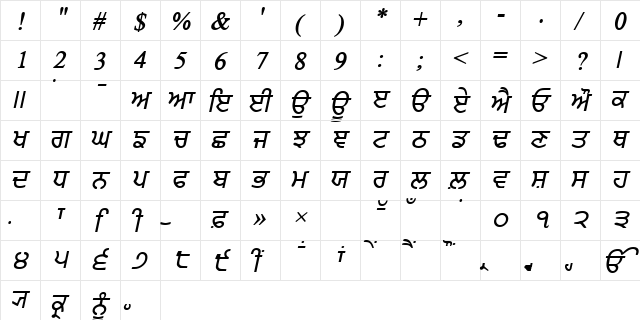
PunjabiAmritsarSSK BoldItalic Font Preview
Design Context for PunjabiAmritsarSSK Typeface
PunjabiAmritsarSSK offers clean, dependable letterforms without strong stylistic allegiance, making it a practical choice for designers who need flexibility. The slanted form adds forward momentum and visual energy. The heavy weight commands attention and anchors typographic hierarchies.
Pro Tip: Try PunjabiAmritsarSSK for annotation and caption copy alongside an upright companion — the contrast in angle creates a dynamic but ordered typographic system.